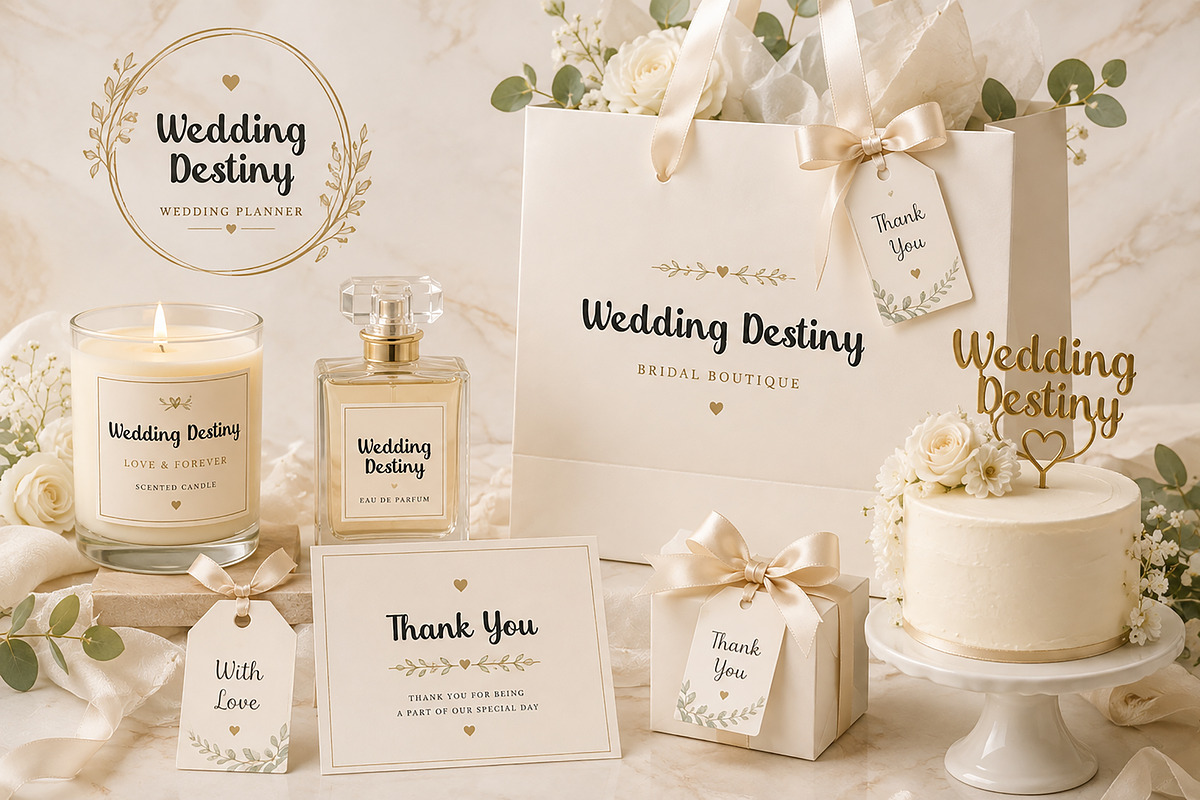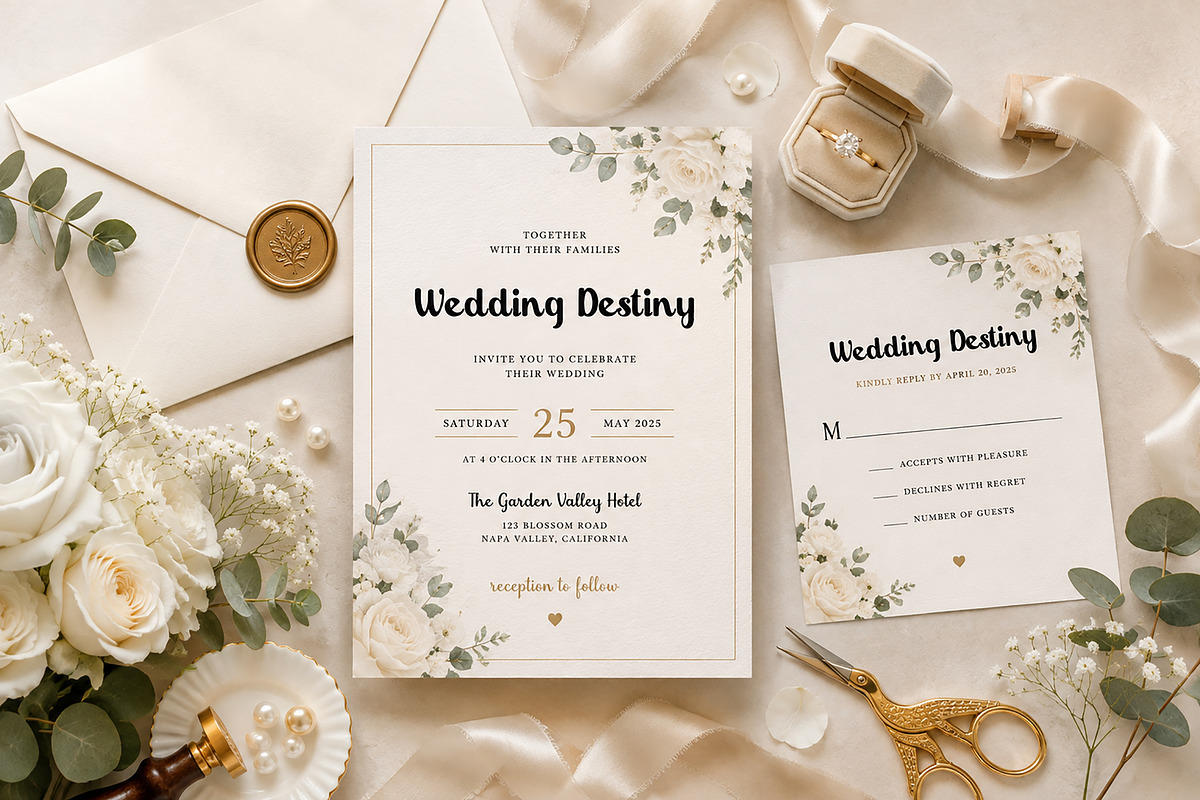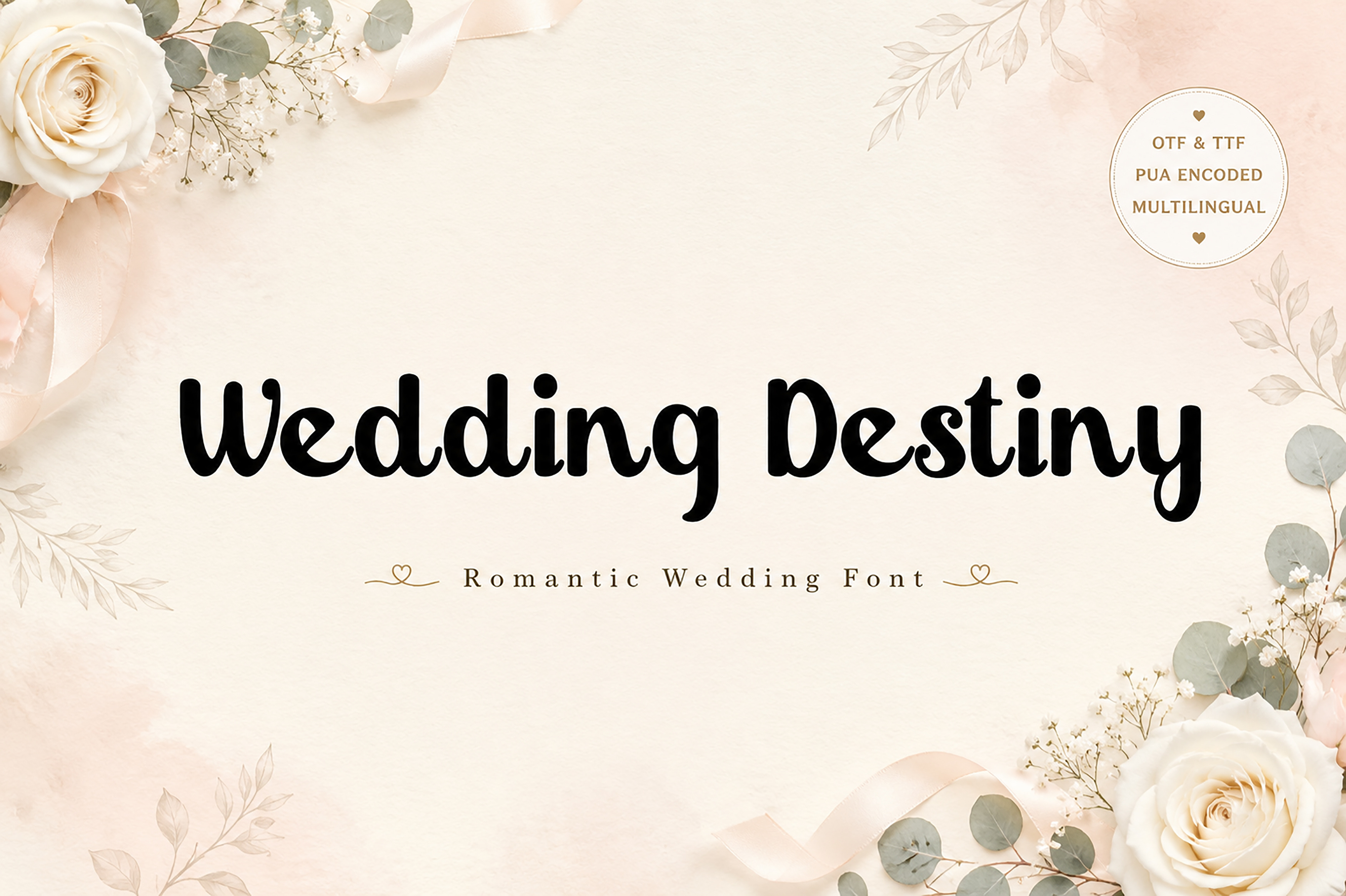
Wedding Destiny – Wedding Font
Wedding Destiny – Romantic Wedding Font
Wedding Destiny is a charming and elegant wedding-inspired display font designed to bring warmth, romance, and personality to your creative projects. With its smooth handwritten style and playful curves, this font is perfect for creating timeless wedding stationery, feminine branding, and heartfelt designs.
Whether you're designing wedding invitations, save-the-date cards, bridal branding, greeting cards, social media graphics, or personalized gifts, Wedding Destiny adds a beautiful handcrafted touch that makes every design feel special.
Standard Ligatures
Smooth Handwritten Style